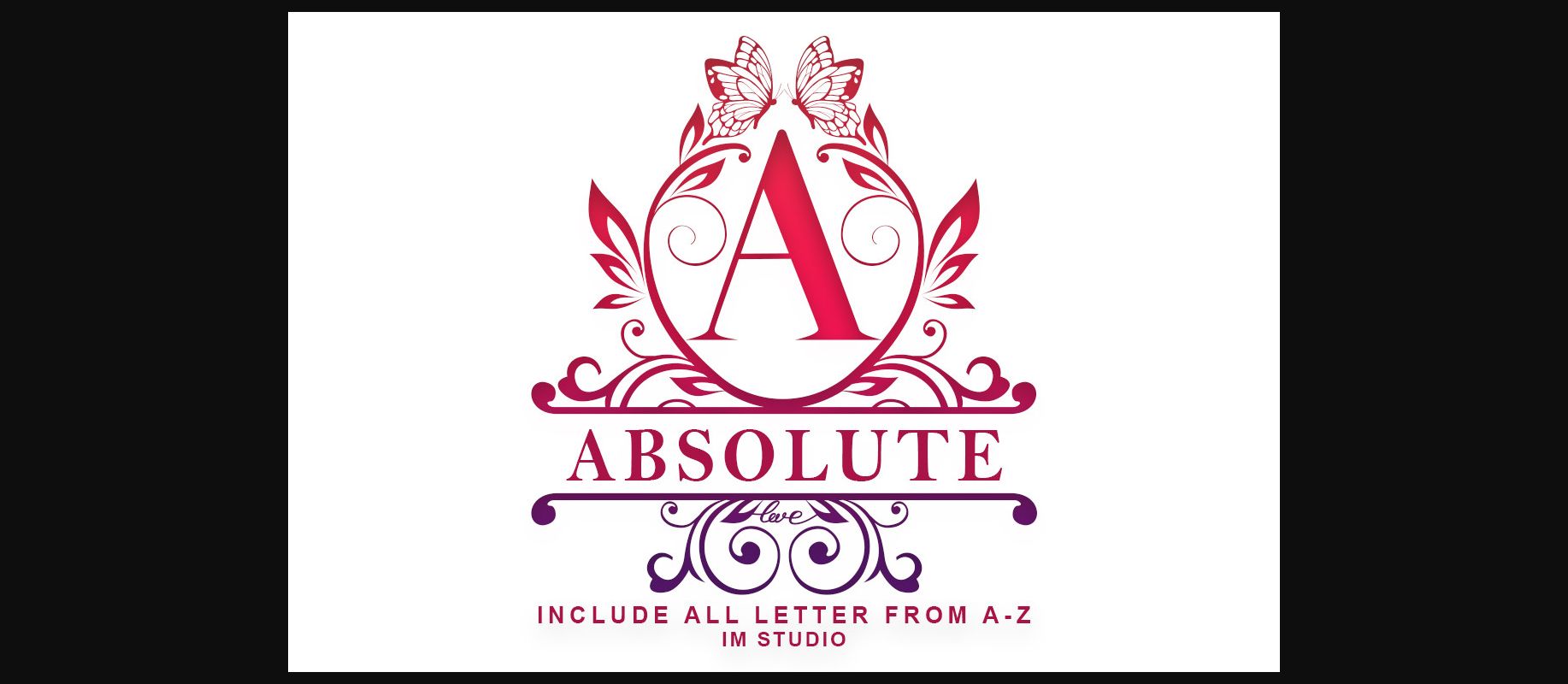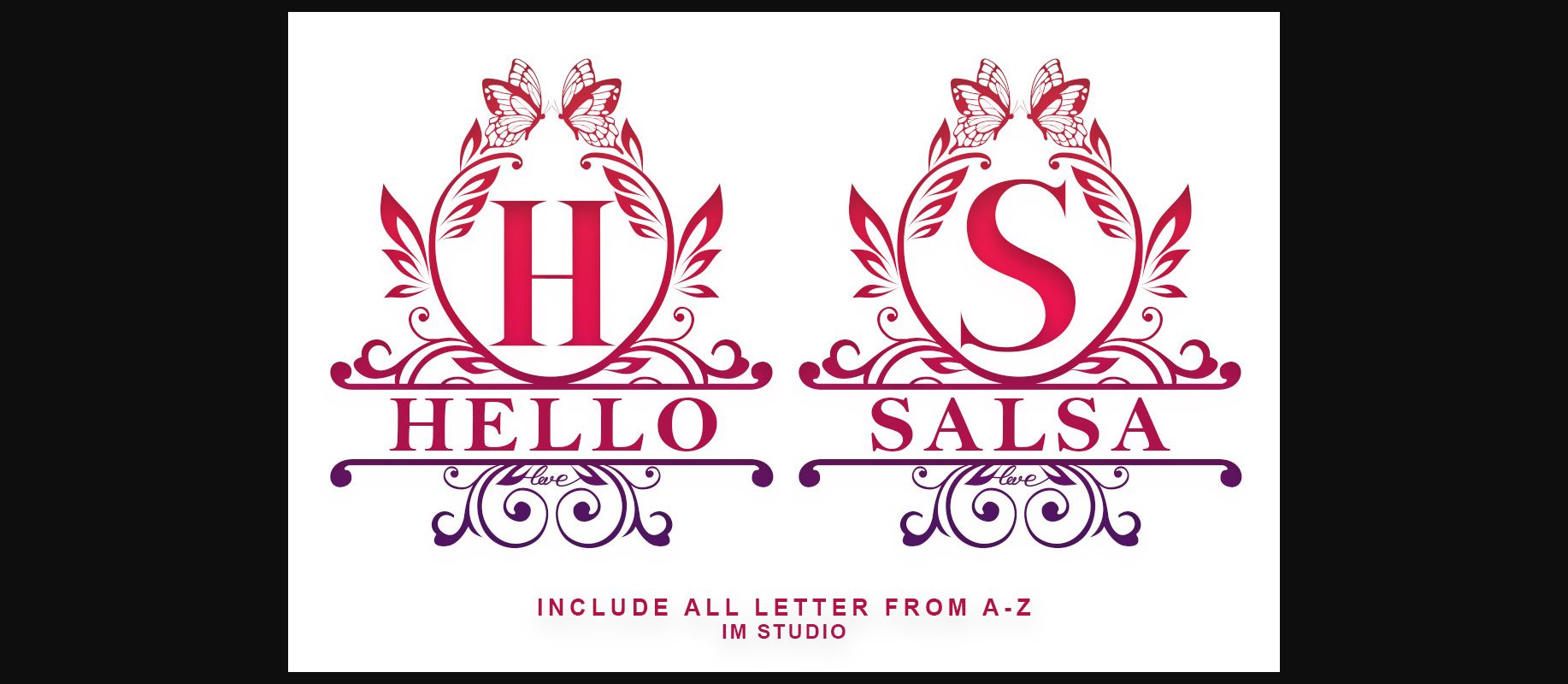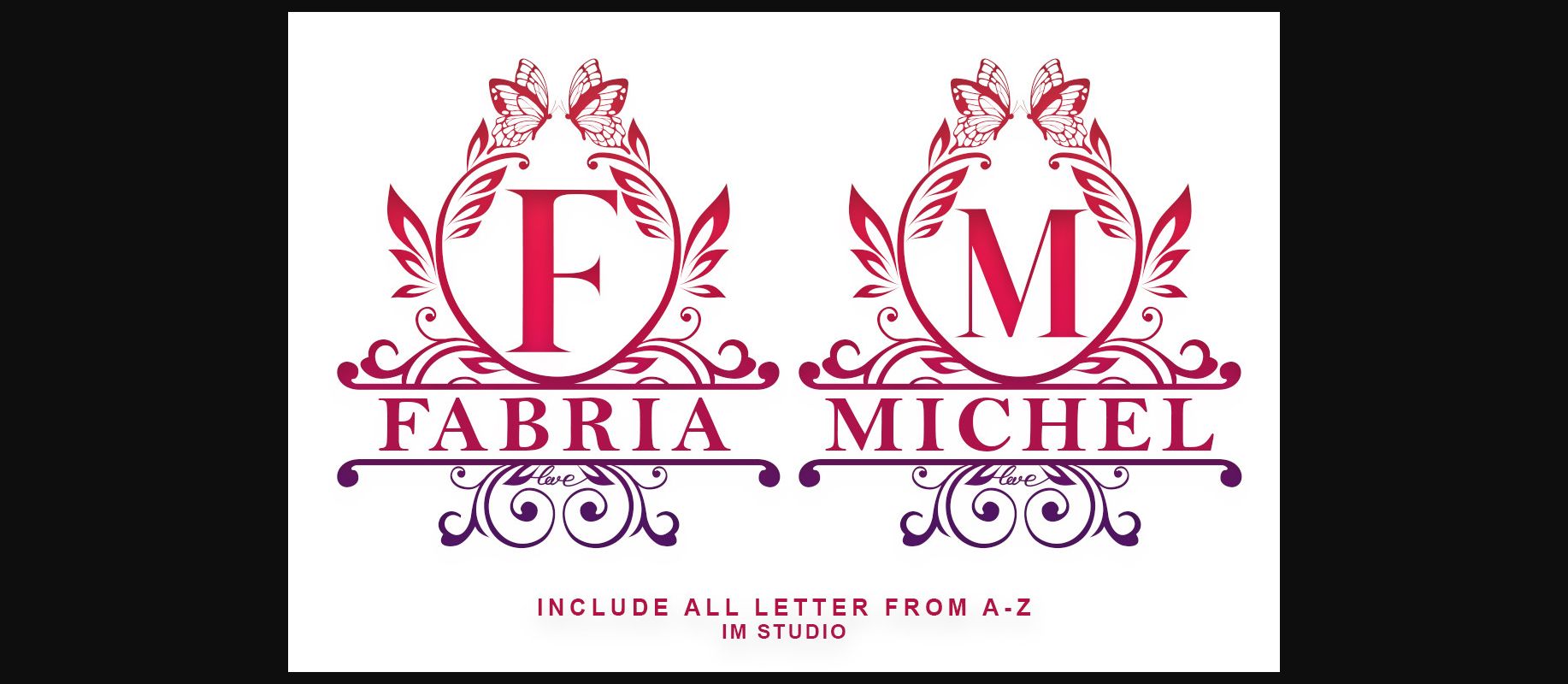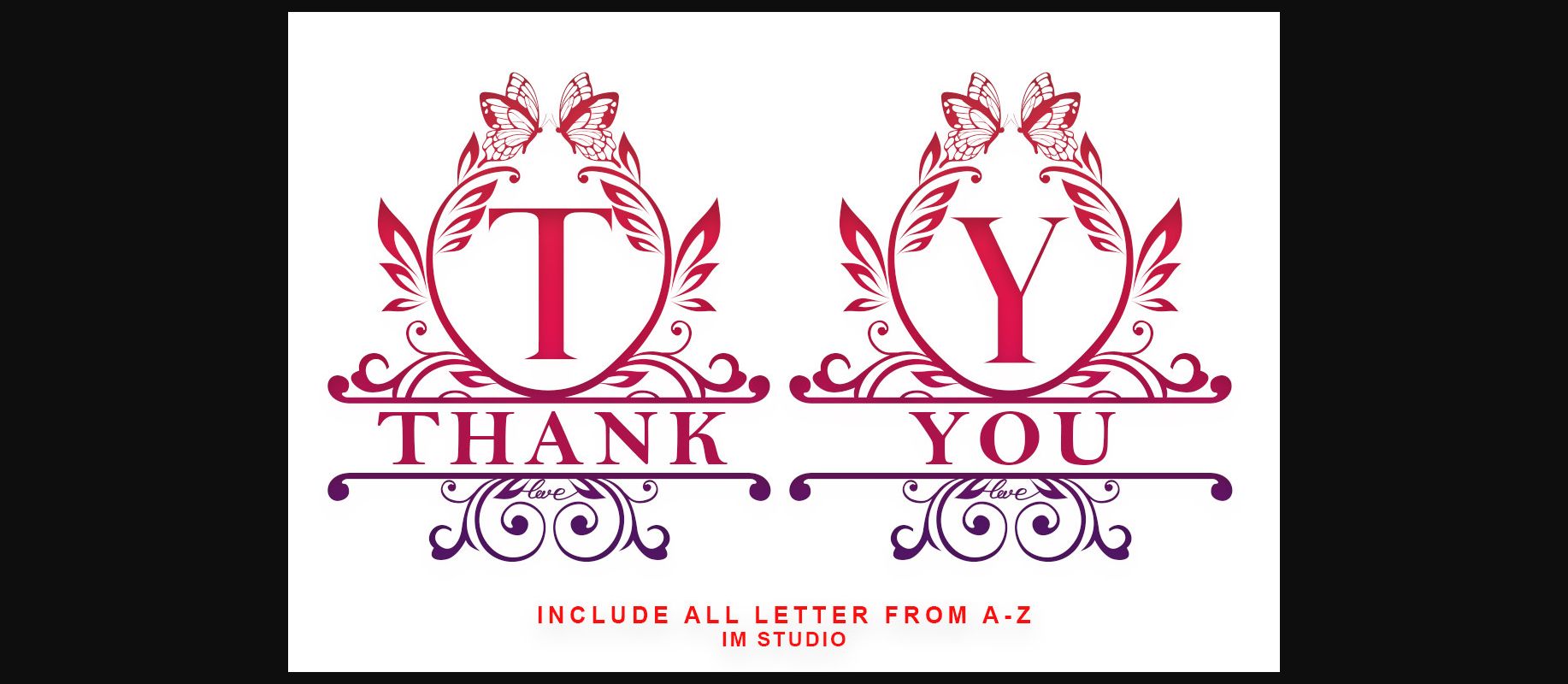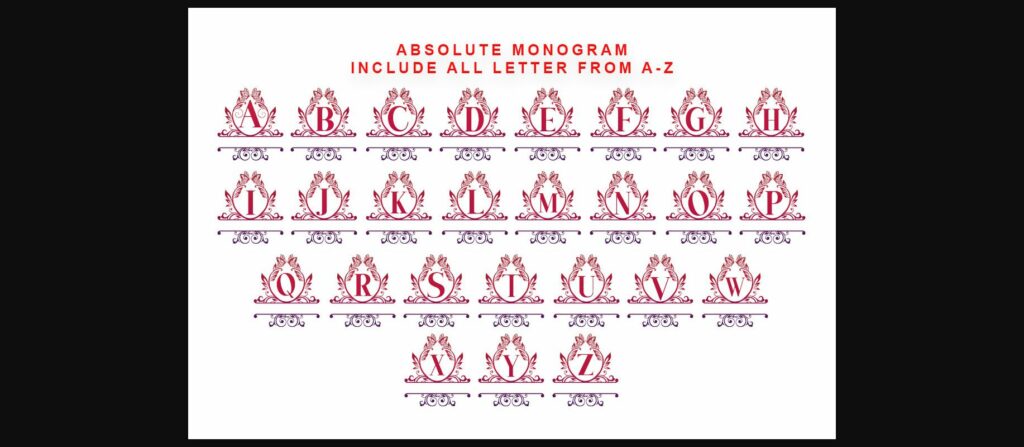
HomeDecorative FontsAbsolute Monogram Font Decorative Fonts Absolute Monogram Font FacebookXPinterestWhatsApp 1 of 7 ... Absolute Monogram Font Poster 2... Absolute Monogram Font Poster 3... Absolute Monogram Font Poster 4... Absolute Monogram Font Poster 5... Absolute Monogram Font Poster 6... Absolute Monogram Font Poster 7... About Absolute Monogram Font Absolute Monogram is a charming decorative font. Fall in love with its authentic feel and use it to create gorgeous invitations, beautiful stationary art, eye-catching social media posts, and cute greeting cards. DOWNLOAD NOW People also explored Little Tooth Font Mushroom Land Font Rosezy Font Marira Binttang Font King Graphics Font Keumala Font Alexandra Font Cruxially Font Reallity Font 481 0 TagsAbsolute Monogram Font Previous articleChristmas Cute FontNext articleBountiful Bliss Rose Font LEAVE A REPLY Cancel reply Comment: Please enter your comment! Name:* Please enter your name here Email:* You have entered an incorrect email address! Please enter your email address here Website: Save my name, email, and website in this browser for the next time I comment. Personal Use Free Straighler Personal Use Free Read more about this font Callisa Script Personal Use Free Read more about this font Shnobel Personal Use Free Read more about this font Anti Personal Use Free Read more about this font BLOG How to Cut Any Font on Cricut: Convert a Font to SVG (Free) Turn any font into a clean SVG so it cuts crisp on Cricut - a quick 3-step workflow using a free font-to-SVG tool. To increase your work productivity, choose the most readable fonts. Free Fonts Risk: Why Free Fonts Can Be Dangerous for Designers Top 7 Google Fonts Alternatives for Faster and Privacy-Friendly Web Design (2025)